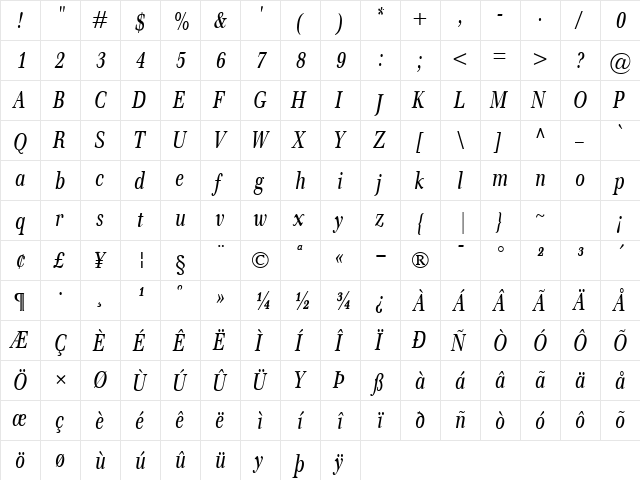
Emona Cond Italic Font Preview
Design Context for Emona Cond Typeface
Emona Cond takes a measured approach to typography — its balanced proportions and neutral character make it a reliable workhorse for both digital and print work. The slanted form adds forward momentum and visual energy. The condensed width makes it efficient for tight spaces without sacrificing legibility.
Pro Tip: Try Emona Cond for annotation and caption copy alongside an upright companion — the contrast in angle creates a dynamic but ordered typographic system.